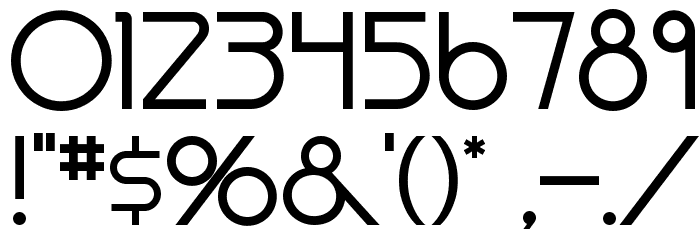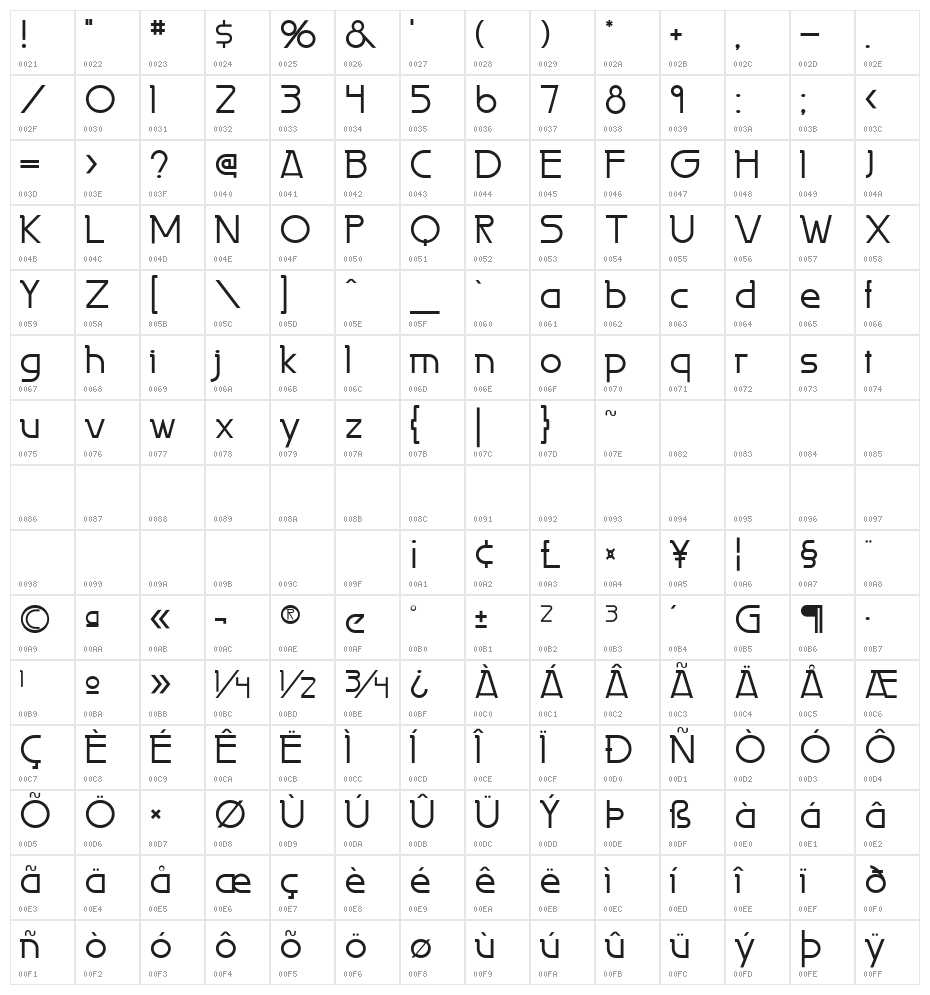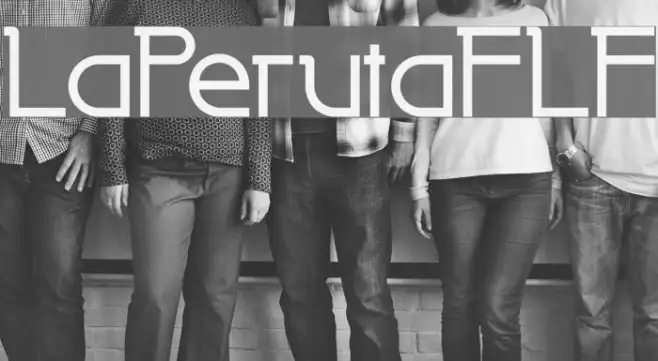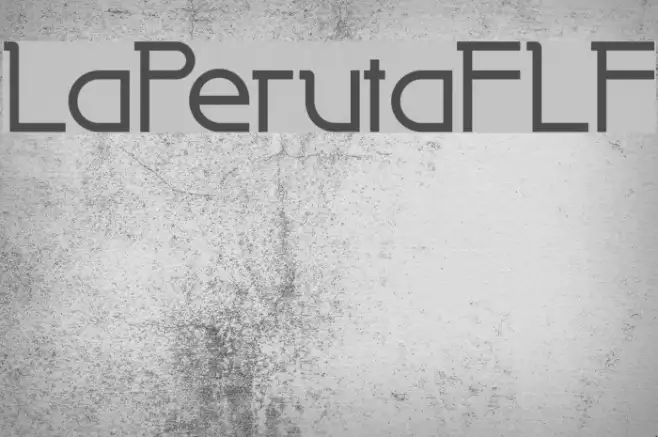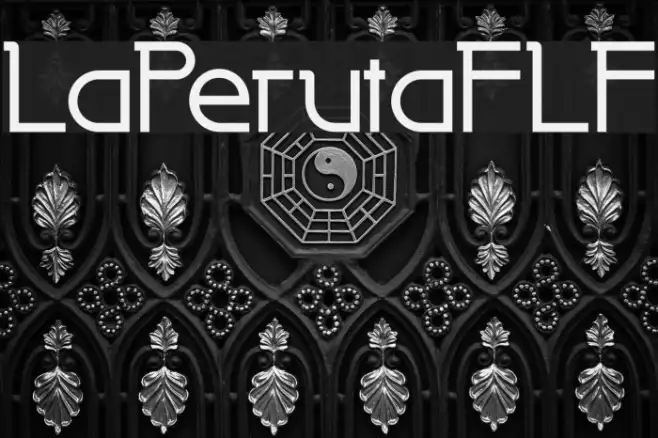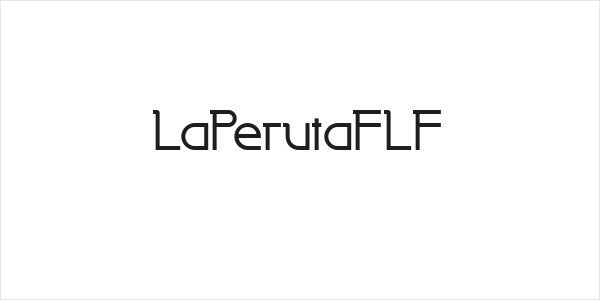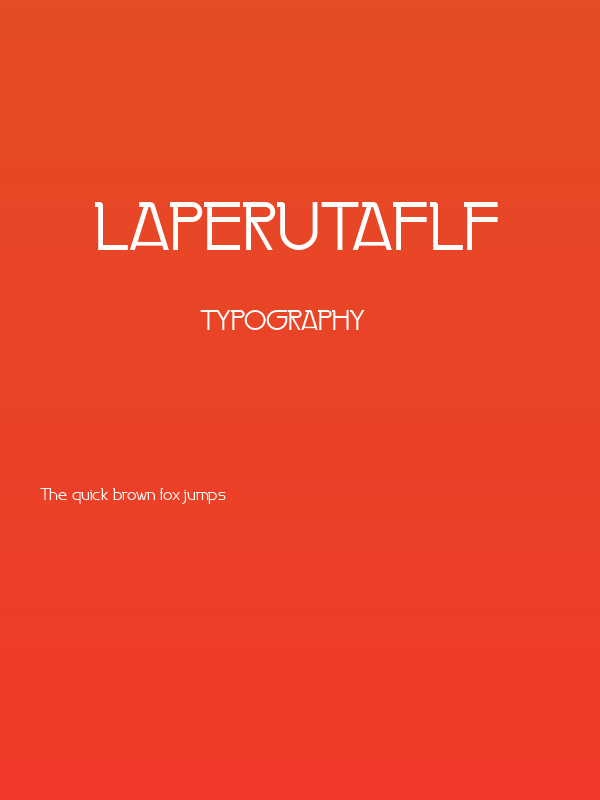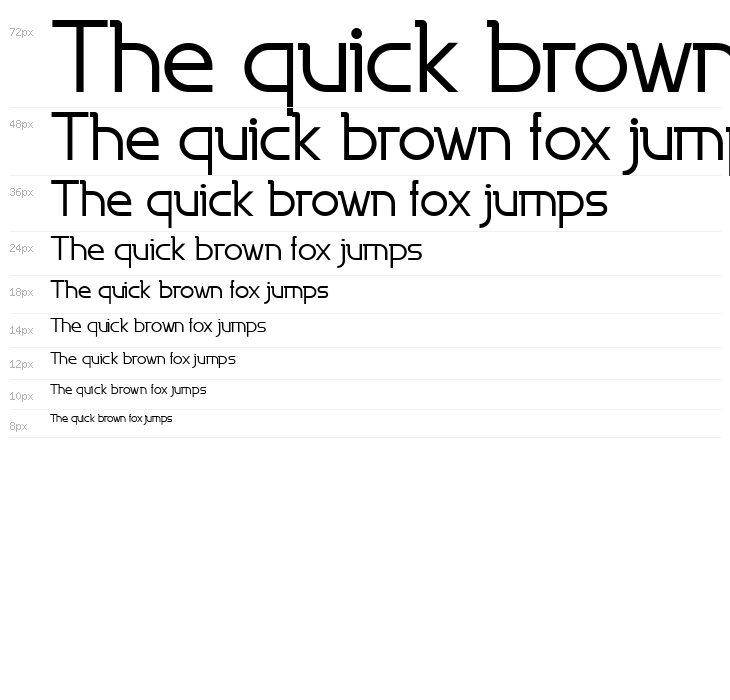
LaPerutaFLF Font
LaPerutaFLF Description
This font features a modern, geometric design with clean lines and a minimalist aesthetic. The characters are constructed with a uniform stroke width, giving it a sleek and contemporary look. The uppercase letters are bold and assertive, while the lowercase letters maintain a consistent style with slightly rounded edges, adding a touch of softness. The numerals are clear and legible, making them suitable for various applications. Special characters are well-defined, enhancing the font's versatility. Overall, this font exudes a sense of modernity and precision, making it ideal for digital and print media.
| Use Case | Headlines, Logos, Digital media |
| Proposed Projects | Ideal for branding, digital media, advertising, and modern print designs. |